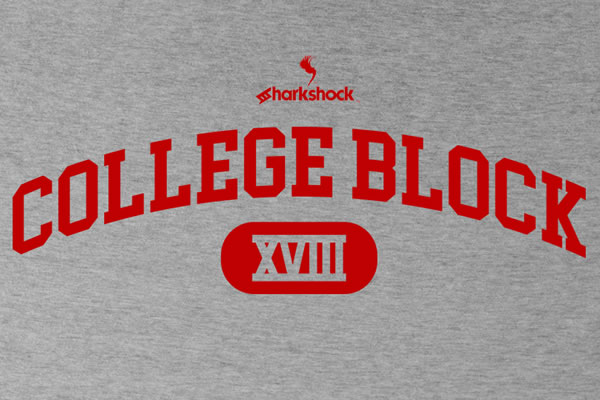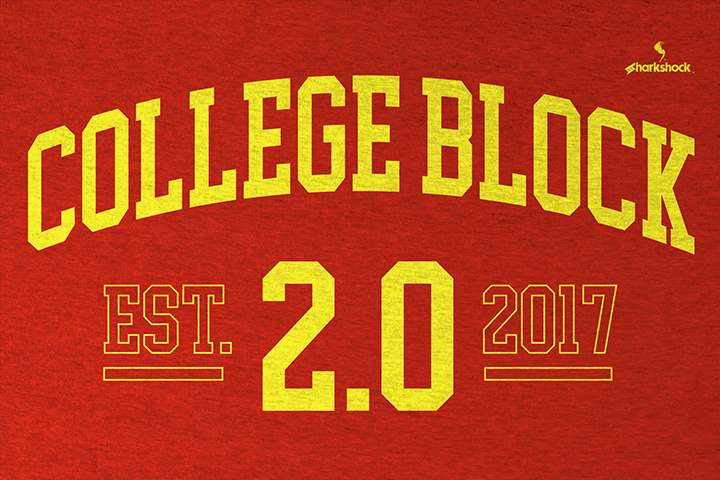
About the College Block Font
Step up your design game with College Block Font, a font that exudes confidence and style. WAKE UP!! Class is in session! College Block is a modified version of Blockletter Tall featuring many new glyphs and of course serifs reminiscent of that used on collegiate sweatshirts.
Kerning and European accents are included. Use it for your own tees or campus project
College Block’s bold, retro-collegiate style works best in headlines, short text blocks on posters, or as a branding element for apparel and merchandise. It’s highly effective for projects needing a strong, nostalgic feel. Avoid using it for body text or long paragraphs; its design isn’t optimized for readability at smaller sizes. UI applications are also unsuitable due to its weighty character.
Pair College Block with a clean sans-serif like Open Sans for a balanced contrast, or a more playful script font such as Pacifico for a vintage-inspired aesthetic. For a more modern feel, consider pairing it with a geometric sans-serif like Futura.
The overall personality is confident and assertive, conveying a sense of tradition with a playful twist. It’s ideal for brands targeting a younger demographic interested in vintage styles or educational themes.
College Block Font Usage Examples